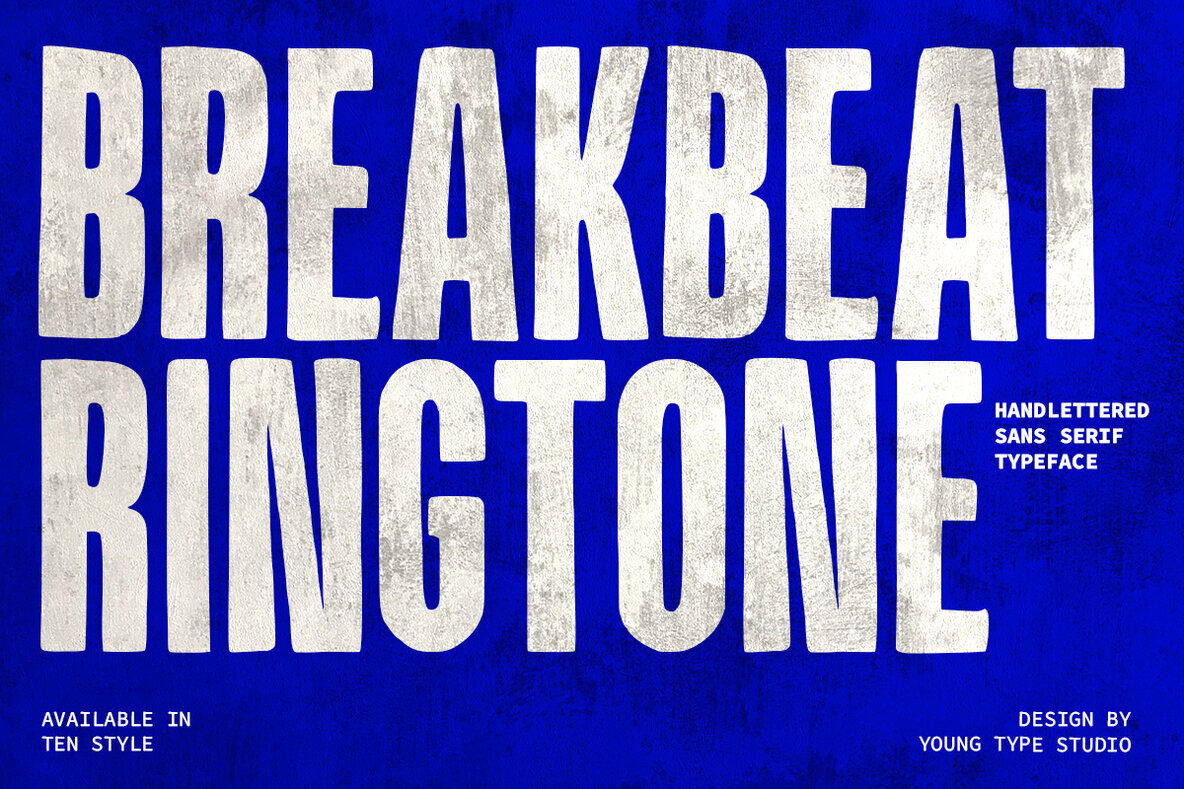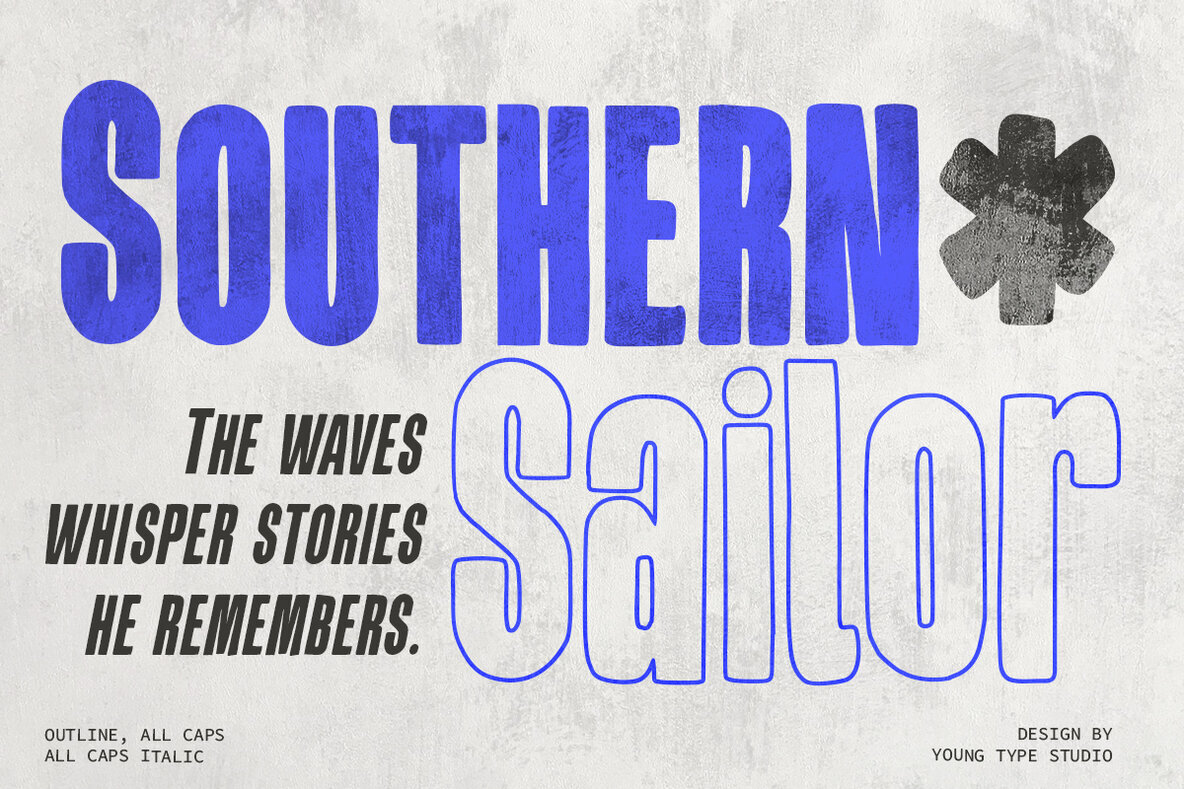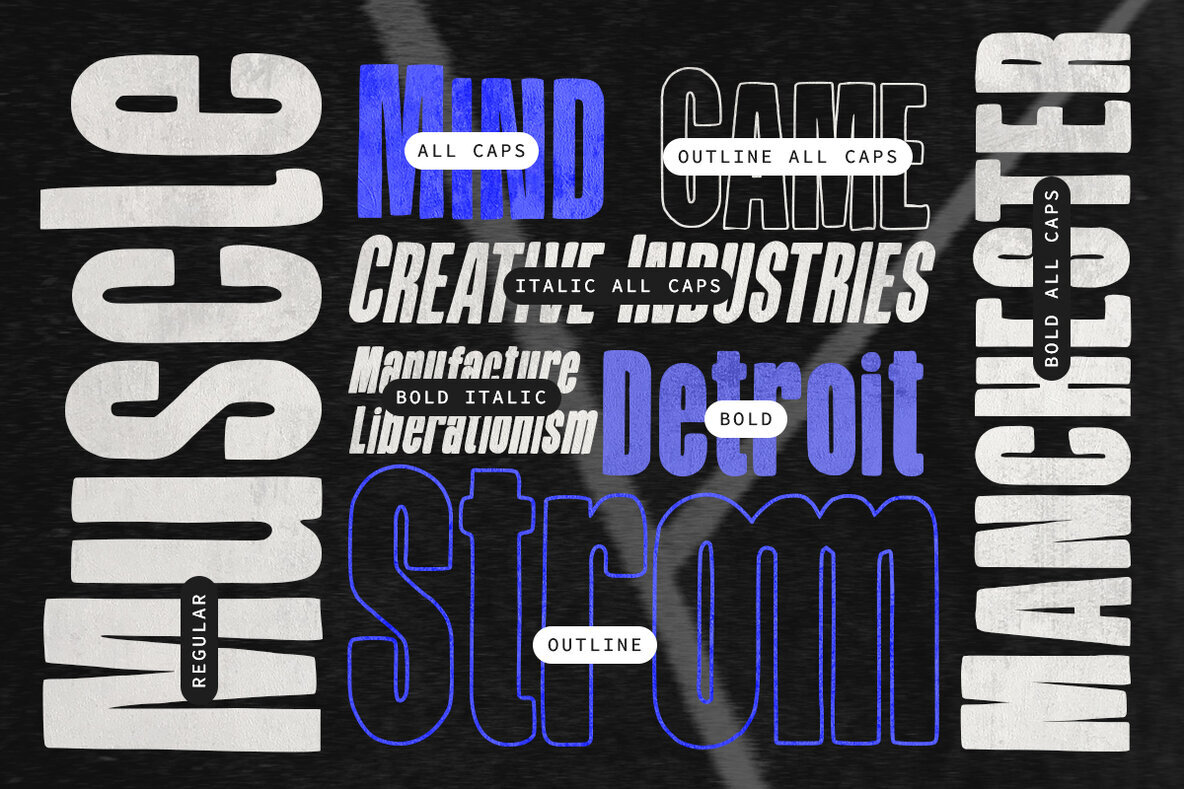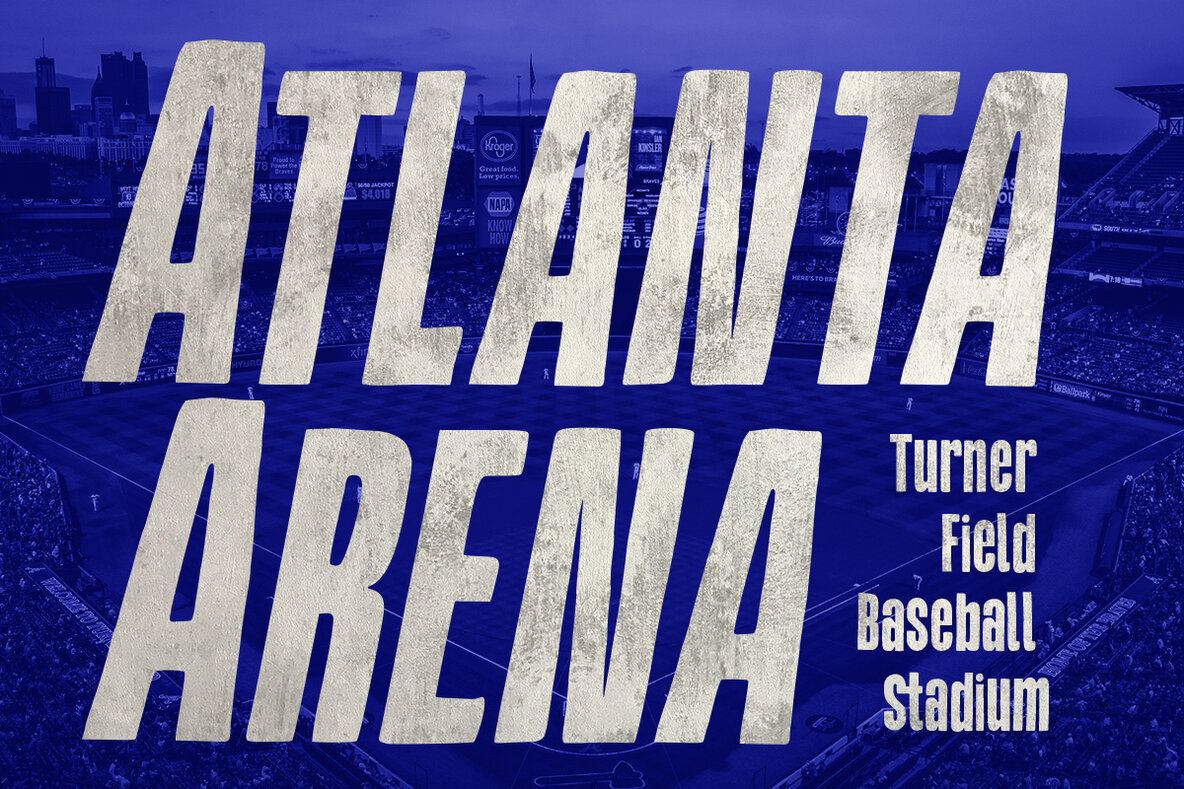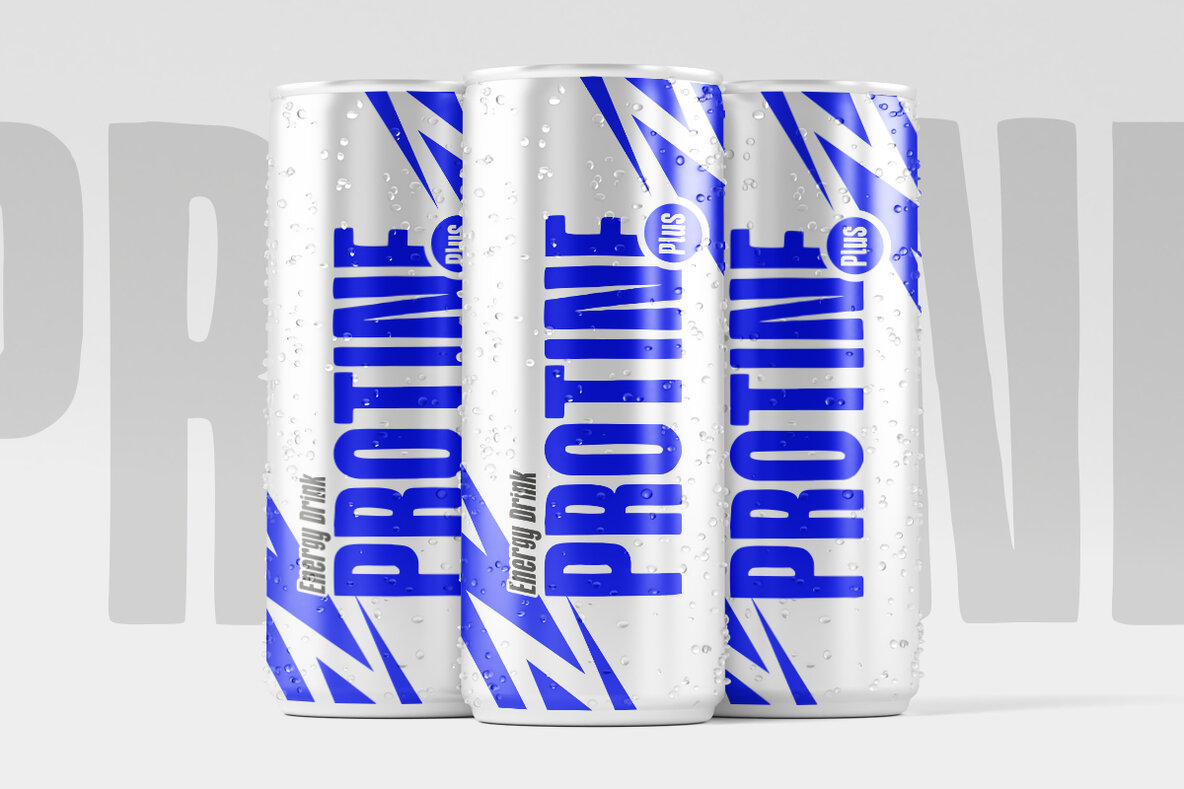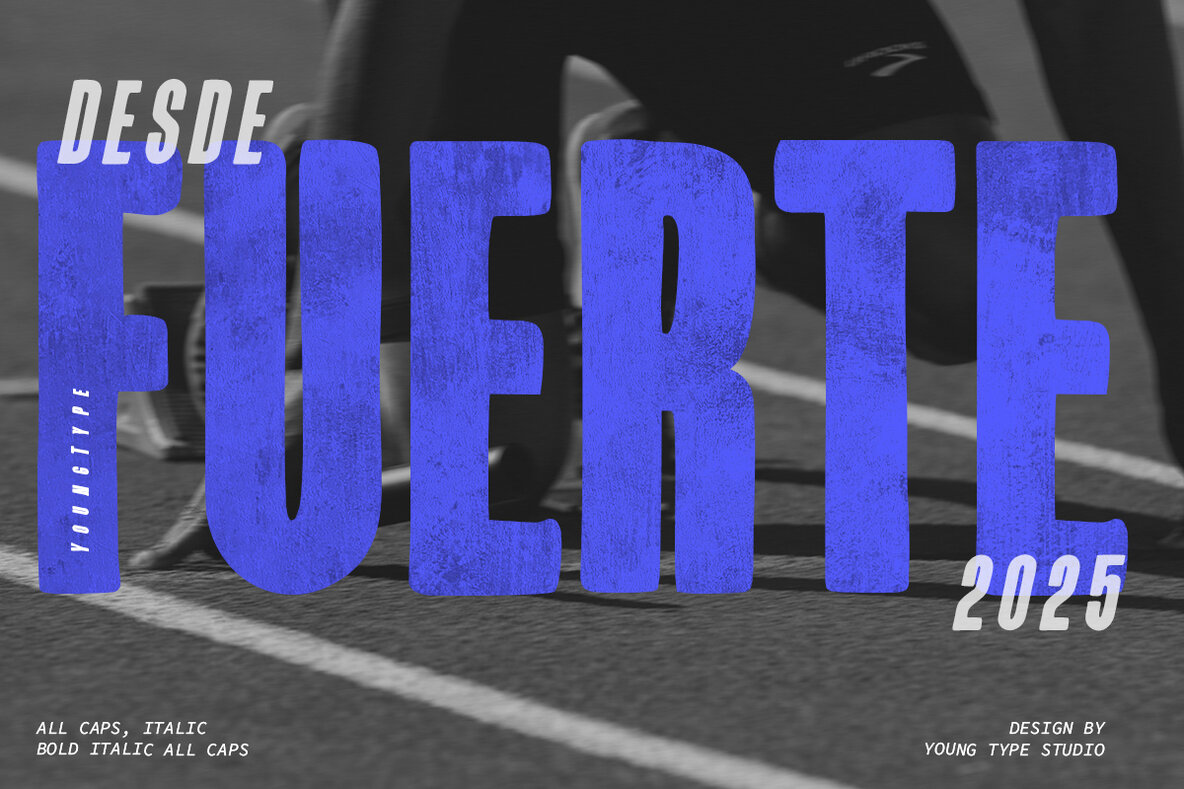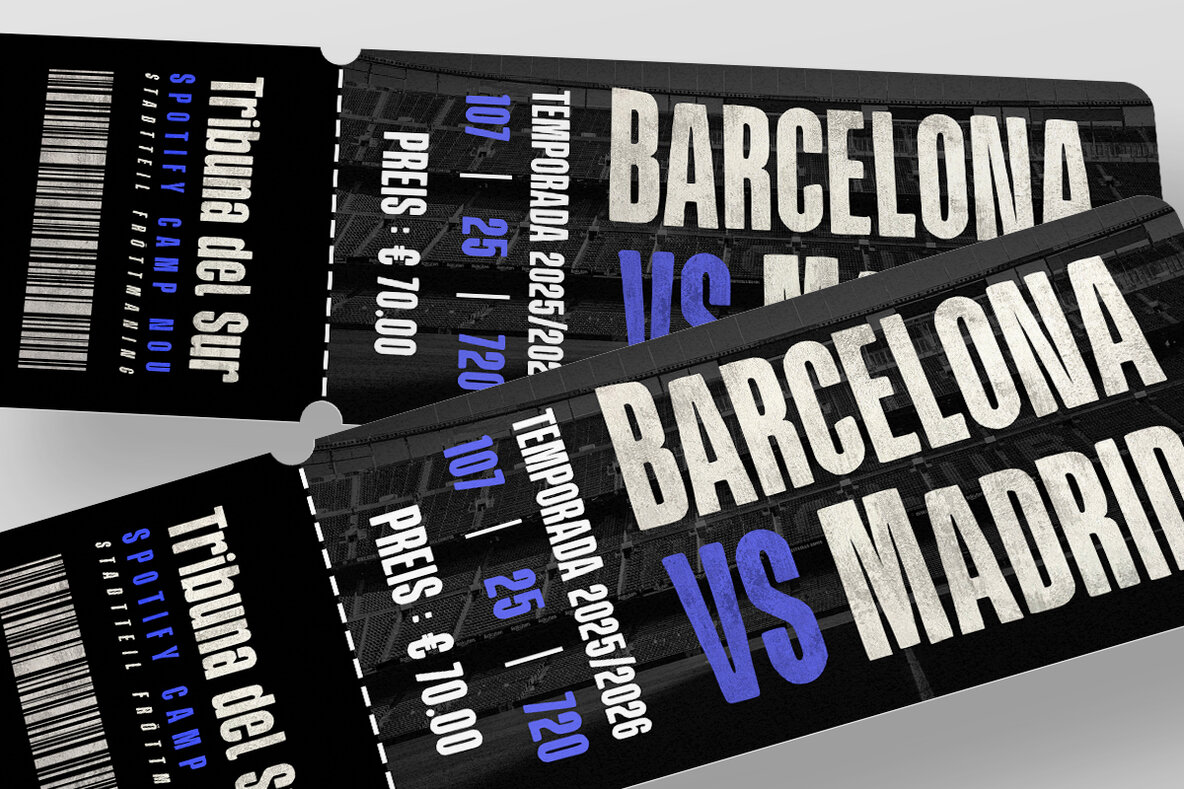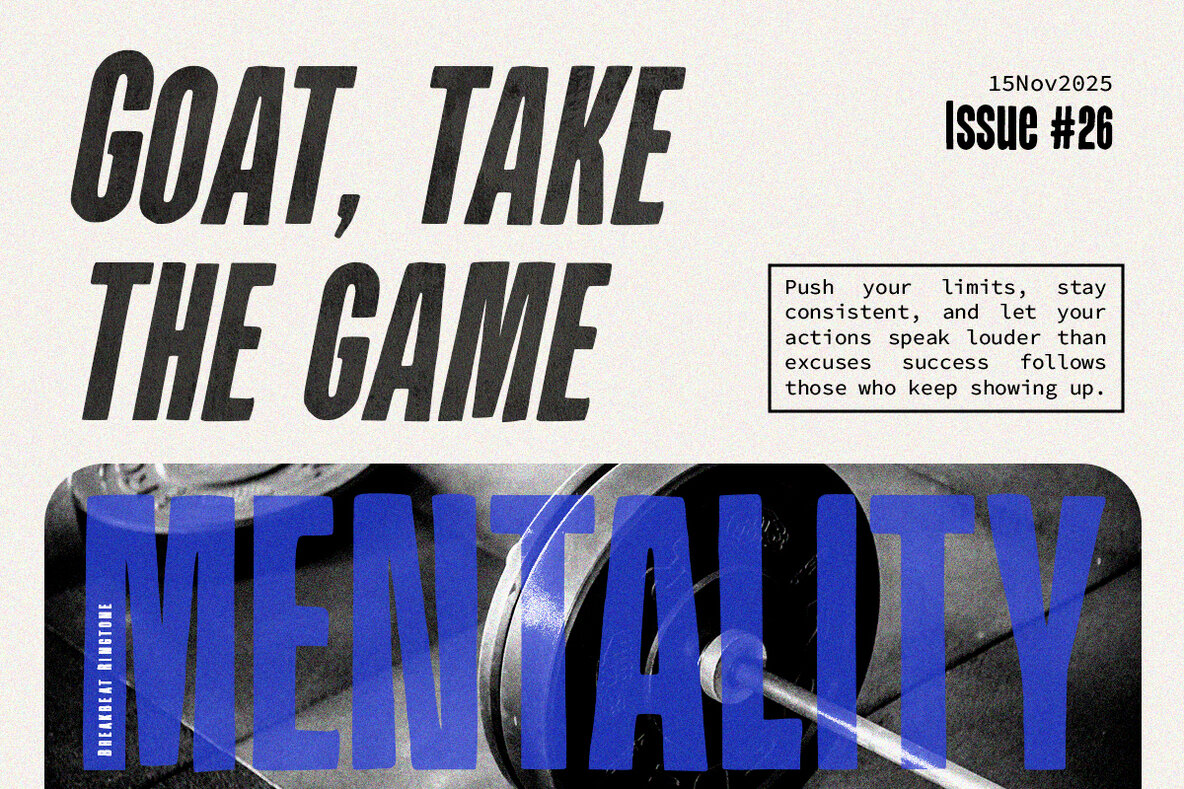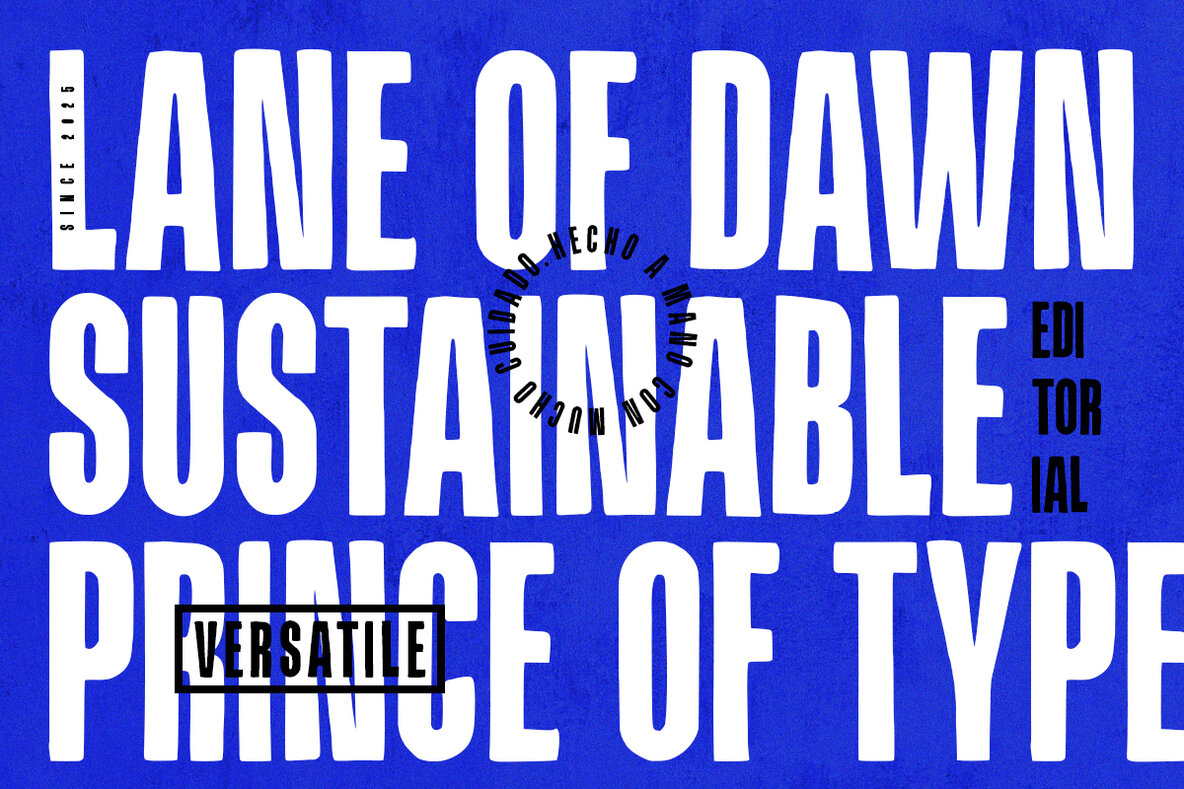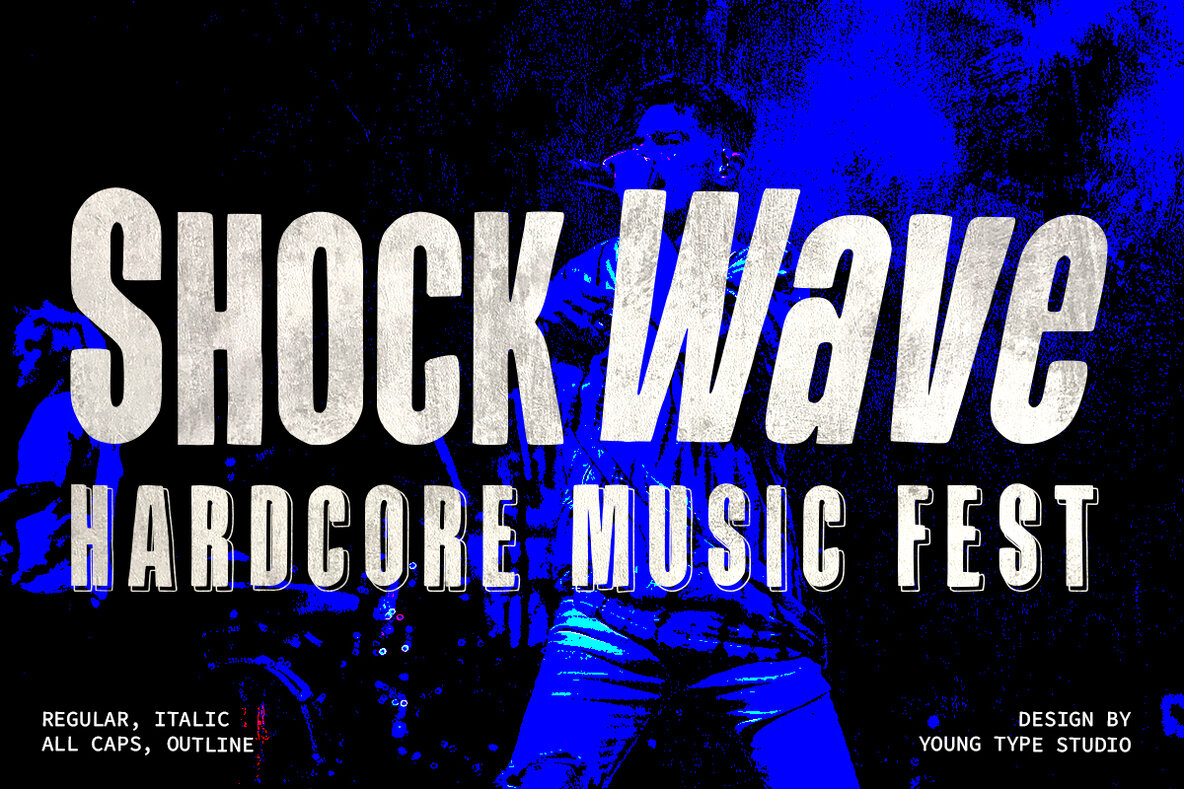
Breakbeat Ringtone Font
Breakbeat Ringtone is an audacious sans serif typeface, hand-lettered to reveal a rough, textured essence. Its gritty and expressive personality is conveyed through tall, condensed letterforms and slightly irregular shapes, crafting a raw and energetic allure. This typeface is an ideal choice for music-themed designs, streetwear branding, posters, and striking headlines. With ten distinct styles, it offers versatility while upholding a strong, rebellious character that captures attention in any creative endeavor.Breakbeat Ringtone: A Bold Hand-Lettered Typeface